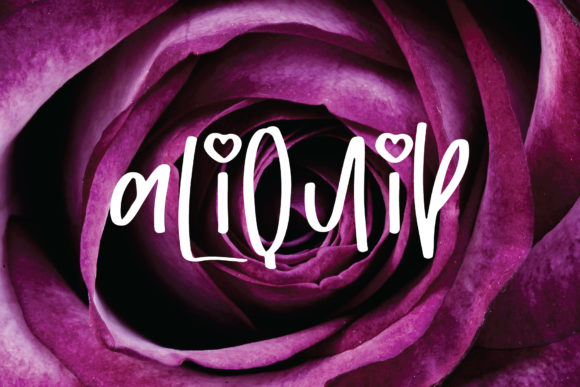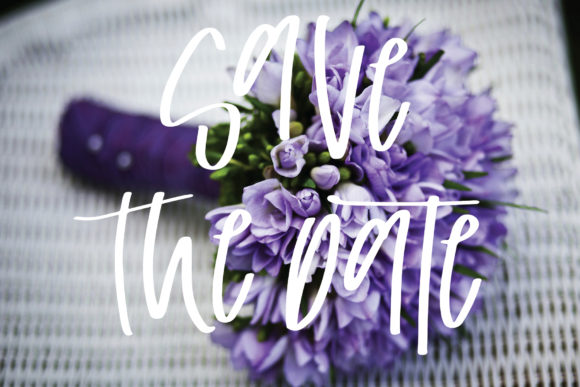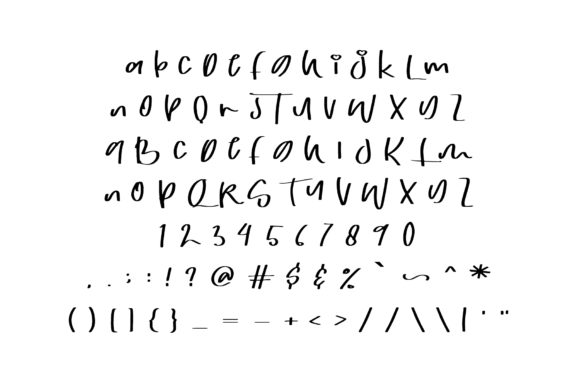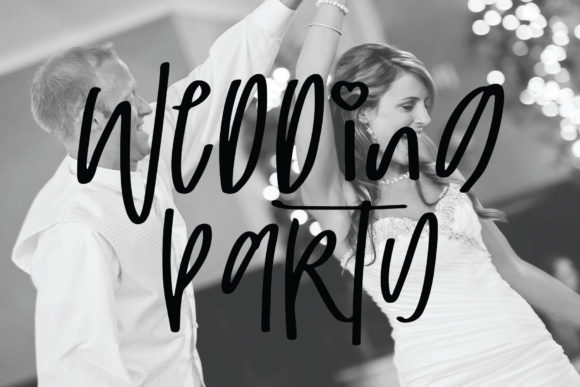
HomeScript FontsAliquip Font Script Fonts Aliquip Font FacebookXPinterestWhatsApp Aliquip Font Poster 2 Aliquip Font Poster 3 Aliquip Font Poster 4 About Aliquip Font Aliquip is a gentle and classy script full of confidence. It will take any design project to the next level! DOWNLOAD ON CREATIVE FABRICAThis font is sold and delivered by Creative Fabrica. Font Canyon may earn a commission if you buy through this link. People also explored Kandel Font Olive Font Modern Love Allogist The City Font Alif Baa Taa Dotted Arrows Two Font Solang Font Sweet Kids Font Voyage Culture Font 338 0 TagsAliquip Font Previous articleRotten Brothers FontNext articleJannet Script Font LEAVE A REPLY Cancel reply Comment: Please enter your comment! Name:* Please enter your name here Email:* You have entered an incorrect email address! Please enter your email address here Website: Save my name, email, and website in this browser for the next time I comment. Personal Use Free Chandella Personal Use Free Read more about this font Lemon Milk Font Personal Use Free Read more about this font Fake Receipt Personal Use Free Read more about this font Aragon Personal Use Free Read more about this font BLOG How to Install and Use Fonts on Windows, macOS, and Web Projects How to Install and Use Fonts on Windows, macOS, and Web Projects Fonts are a crucial part of design and branding. Whether you’re designing a... Transform Your Website: Elevate Your Typography with 7 Best Web Font Generators Top 10 Handwritten Fonts That Elevate Your Designs Exploring Font Trends